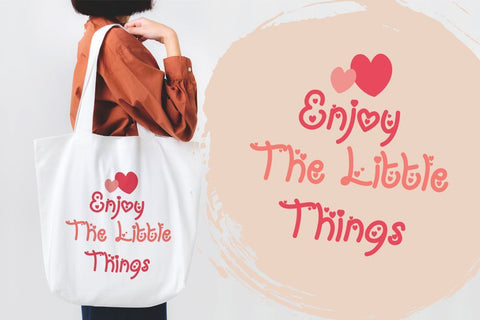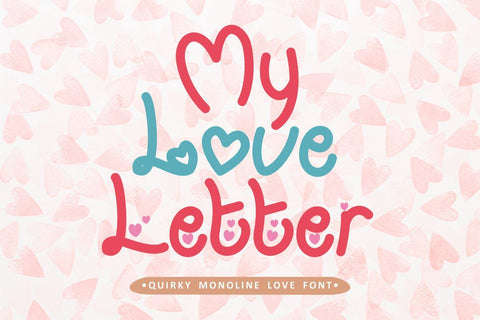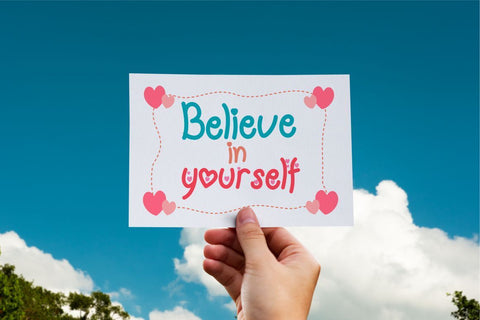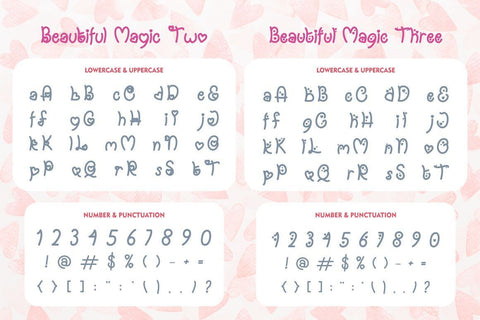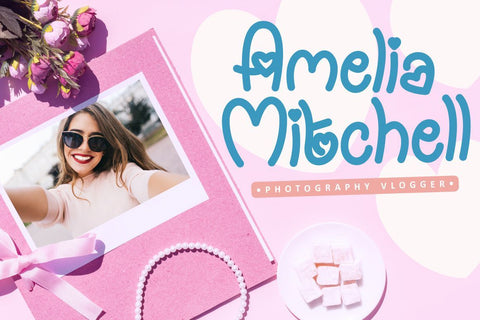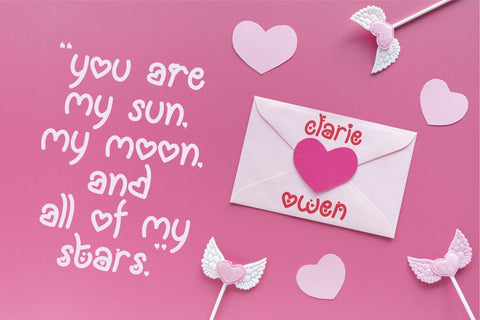
My Love Letter - Quirky Monoline Love Font
Introducing a quirky monoline love font called "My Love Letter", a quirky playful font with 3 different versions of the font, the difference between each version is in the shape of the heart.
This font best uses for valentine, wedding, invitation, heading, cover, poster, logos, quotes, product packaging, header, merchandise, social media & greeting cards and many more.
This font is also support multi language.
Comes with feature :
- Number, Punctuation And Symbols
- Multilanguage Support.